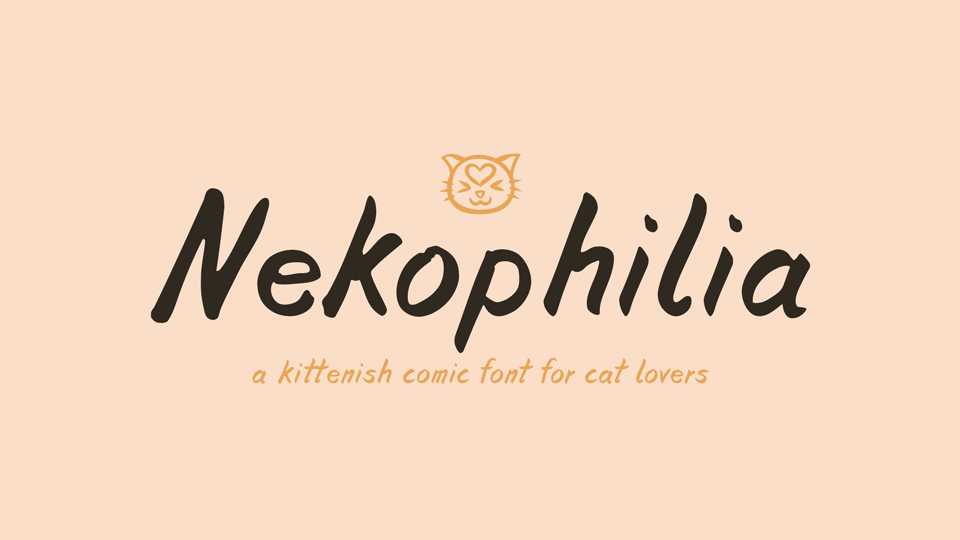
Download Nekophilia font, a comic typeface which was created to mimic the handwriting of Melanie Kuhl. Nekophilia also contains 190 emojis created by Philipp Böckmann which can also be accessed via ligatures.
Designer: Philipp Böckmann